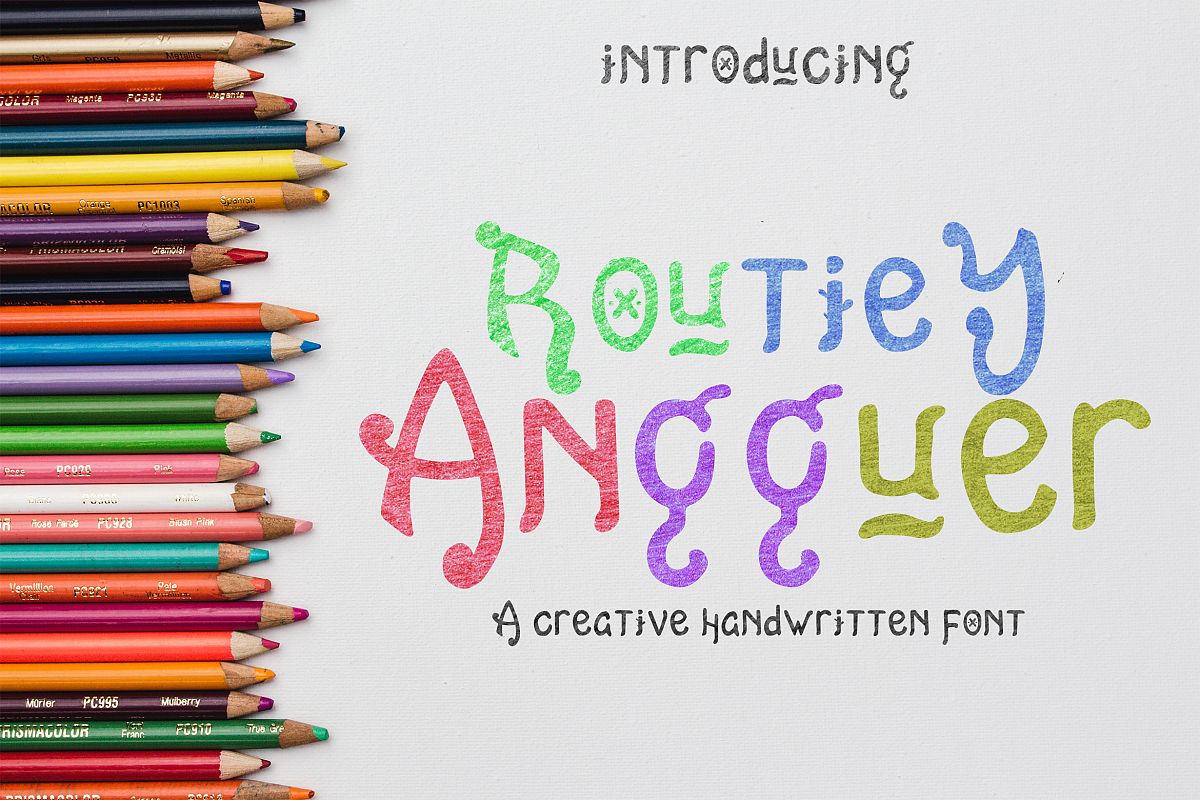
Routiey Angguer - Handwritten Font
Hello, friends,We are happy to introduce our new font "Routiey Angguer". this font looks funny, cute, kids, cartoon, playful, catchy and easy to use.
Routiey Angguer font is the best choice for your professional design projects, including : logo, poster design, t-shirt, headline, flyer, cd cover album, quotes, business card, branding, magazines, social media, advertisements, product designs, or something that need playful or cartoon looks.